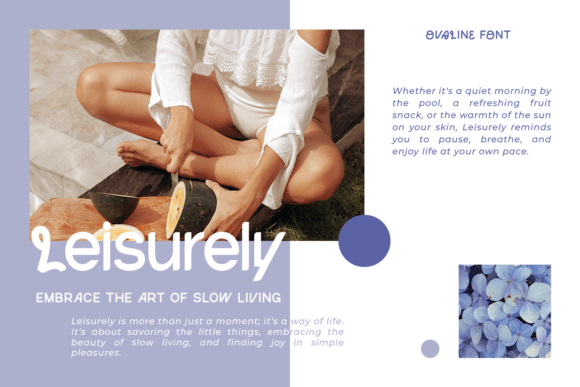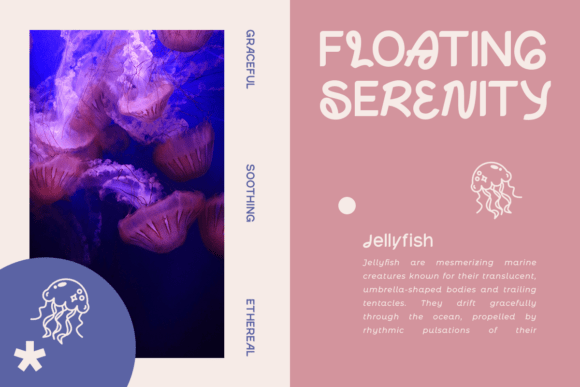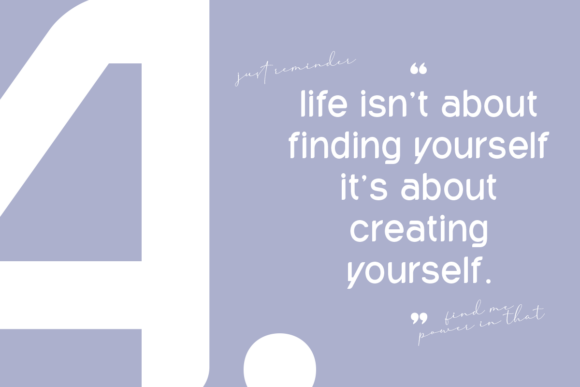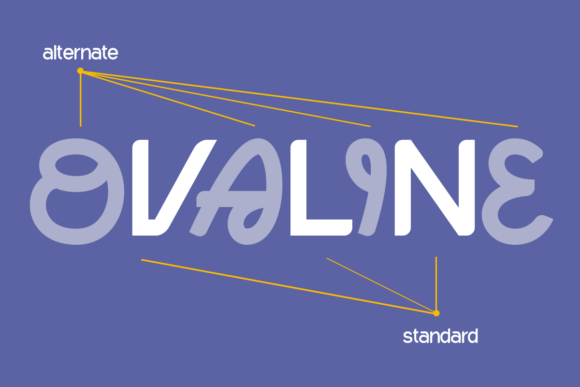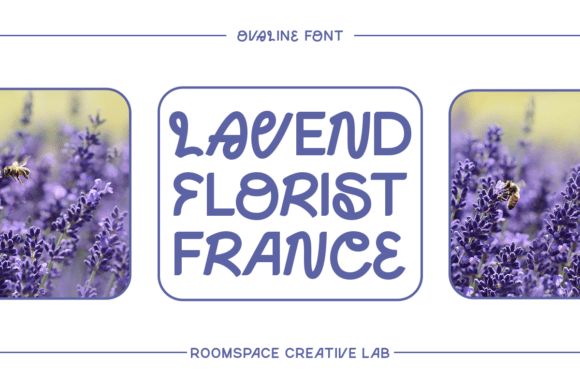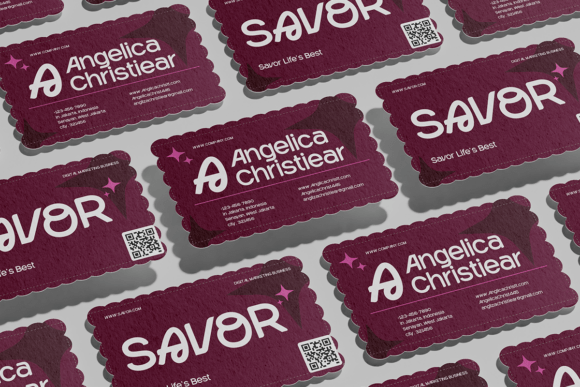
Introduction to Ovaline Font
Ovaline is a modern and aesthetic display font designed to bring uniqueness and creativity to your projects.
This sans-serif typeface features smooth curves and playful design, making it perfect for branding, editorial designs, packaging, and social media graphics With a touch of fluidity and flexibility, Ovaline offers a stylish and versatile look that adapts beautifully to contemporary designs.
Key Features of Ovaline Font
Why Choose Ovaline Font?
Ovaline Font offers exceptional quality and versatility, making it a valuable addition to your design toolkit. Whether you’re creating for personal projects or commercial use, Ovaline Font delivers professional results.